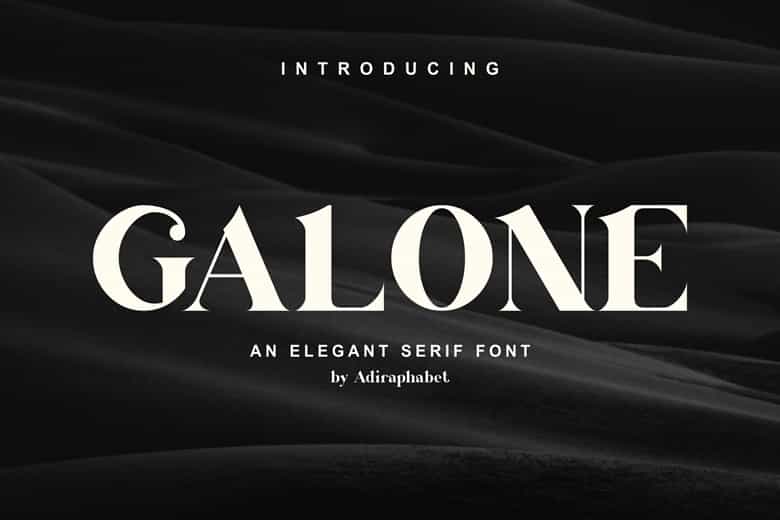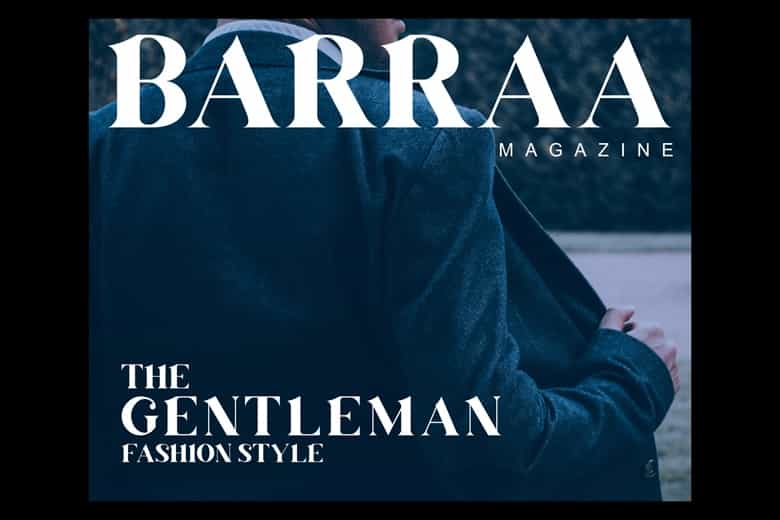
Galone is a beautiful and elegant serif font that will help you elevate any of your designs. Created with font designer is called Adiraphabet. Regardless of the theme of your work, this font will be a welcome addition to your fonts arsenal and can bring a lot of value to whatever you are creating.